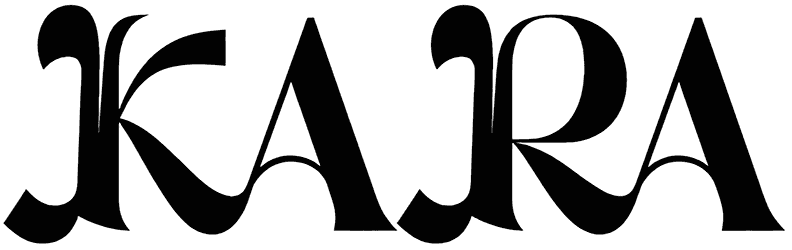
Kara Font
Absolutely, an elegant serif font is going to be one of the matchable letterforms for your classic or modern layout, and this offer is one of them. The unique face of characters will add a charming vision to your text, and covering A-Z characters is an excellent feature of this basic font. Put the Kara font on your words in a novel fashion flyer, a holding logo, or so on, and reveal your creativity.